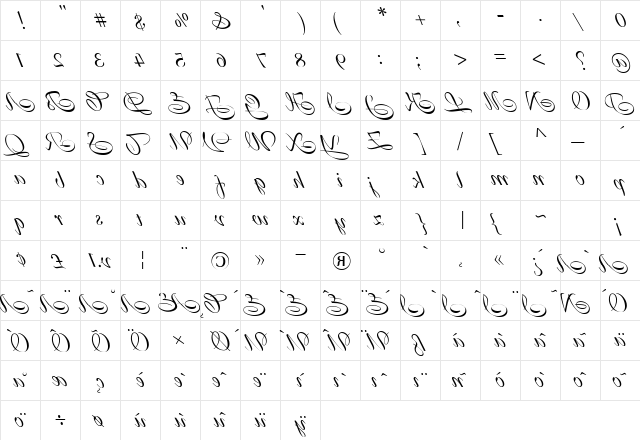
FrancineHmk backwards Regular
Design Context for FrancineHmk backwards Typeface
FrancineHmk backwards is a composed and adaptable typeface that performs quietly and consistently across a wide range of design contexts.